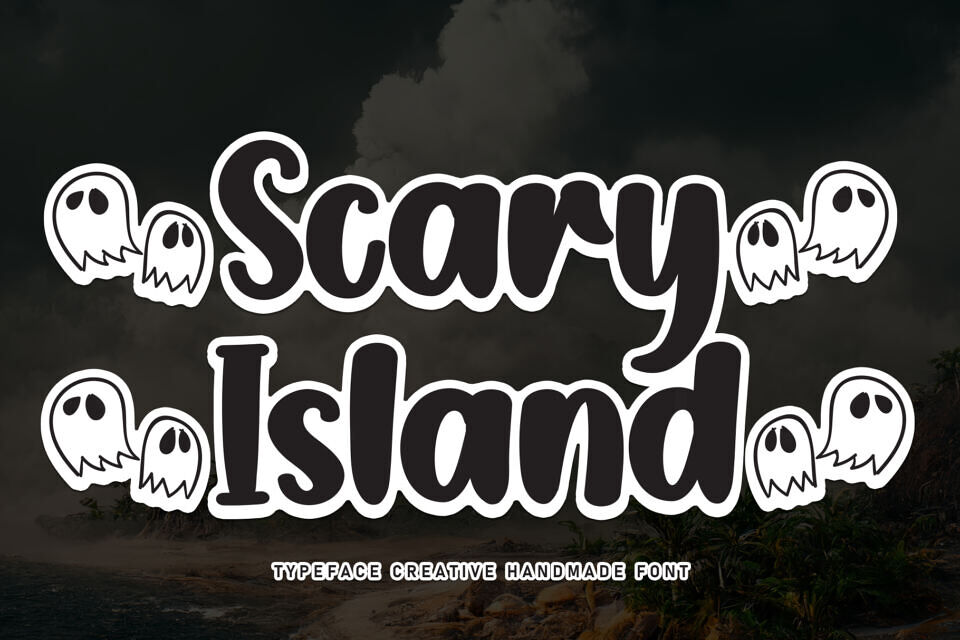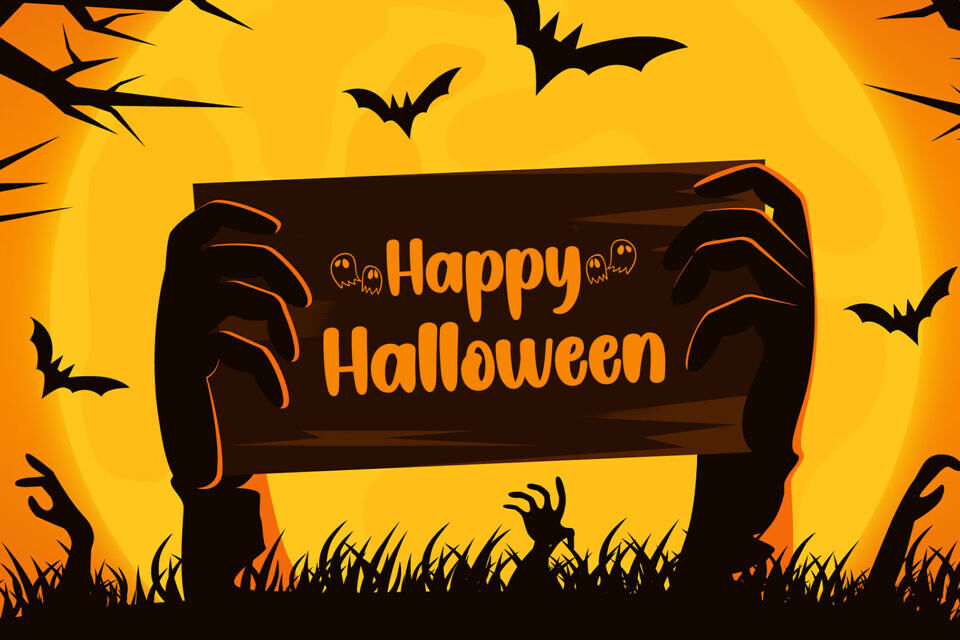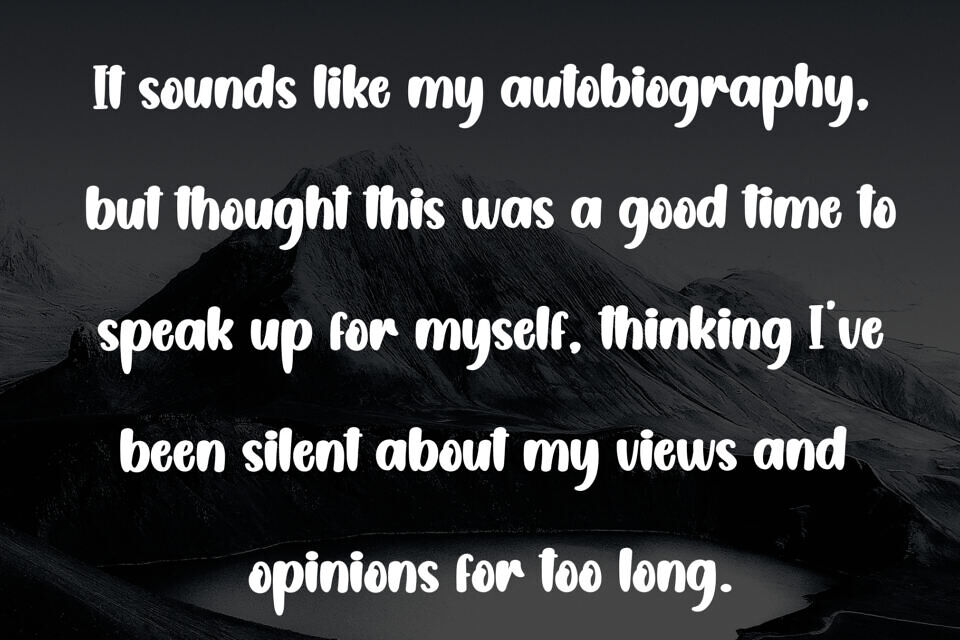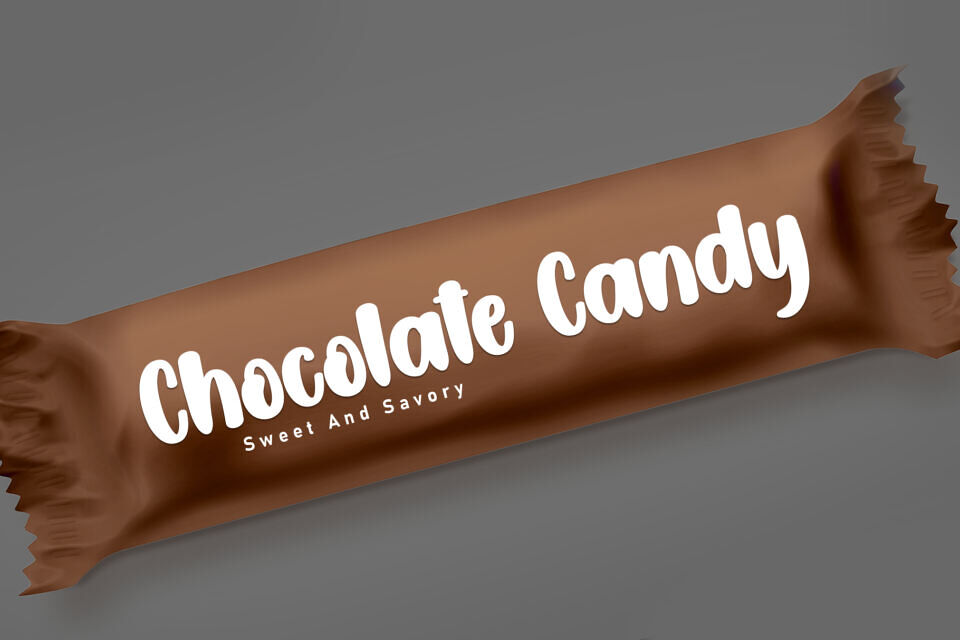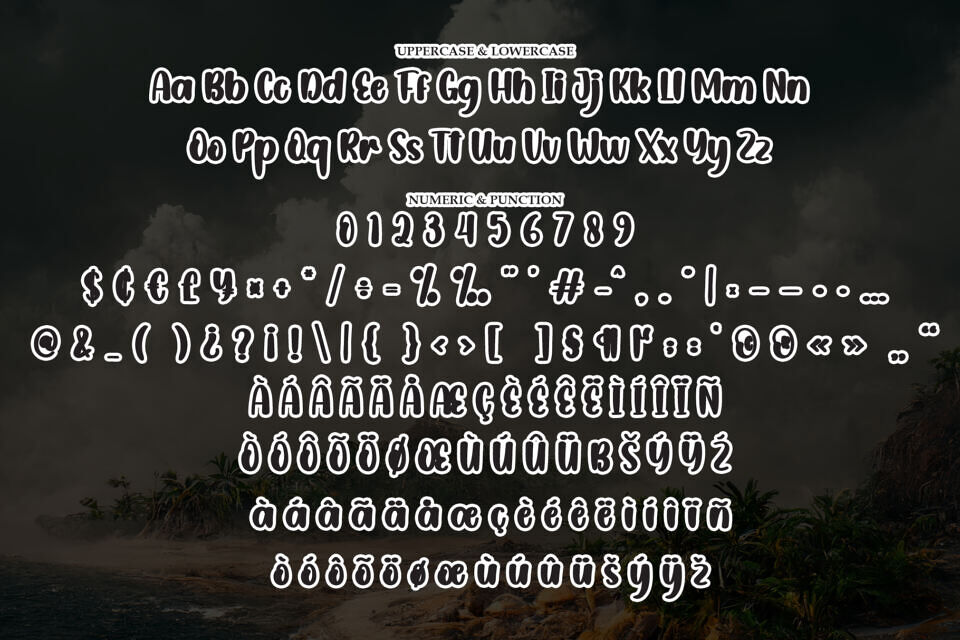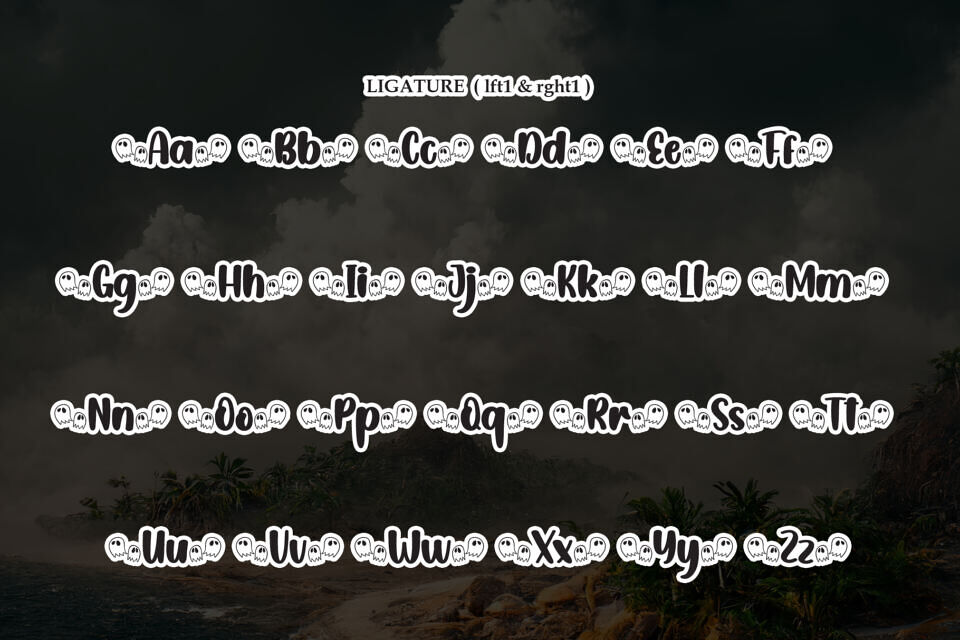
The Scary Island Font is a playful, spooky typeface perfect for Halloween-themed designs. Featuring bold, rounded letters and charming ghost accents, it creates an eerie yet fun atmosphere.
Ideal for party invitations, posters, and other Halloween-related projects, this handmade font brings a creative and lighthearted touch to any spooky setting. The exaggerated curves and expressive design elements make it stand out, ensuring your designs capture the spirit of Halloween in a unique and whimsical way.